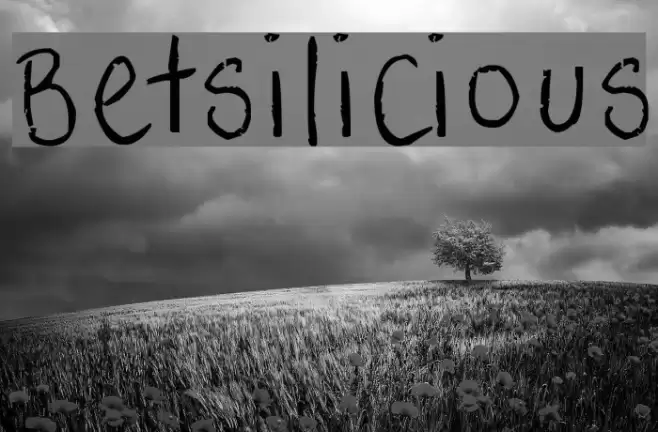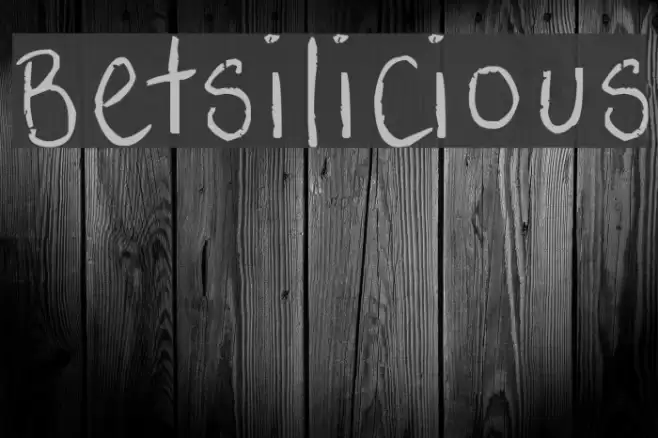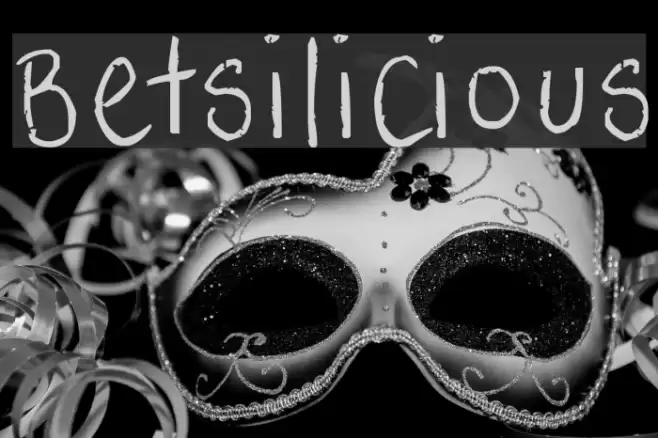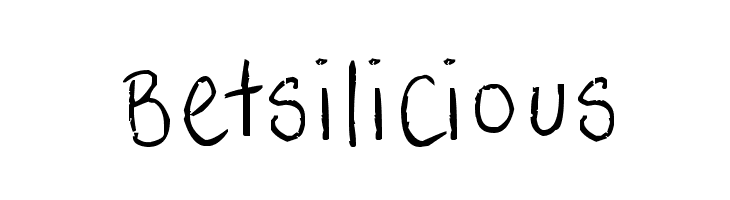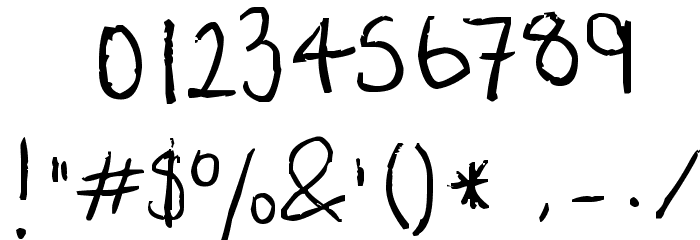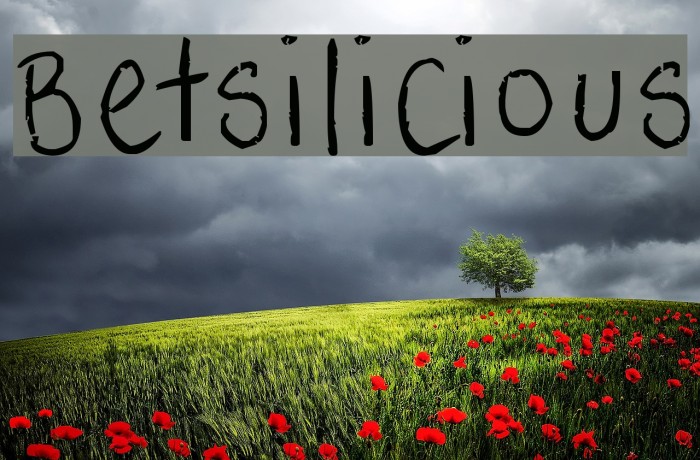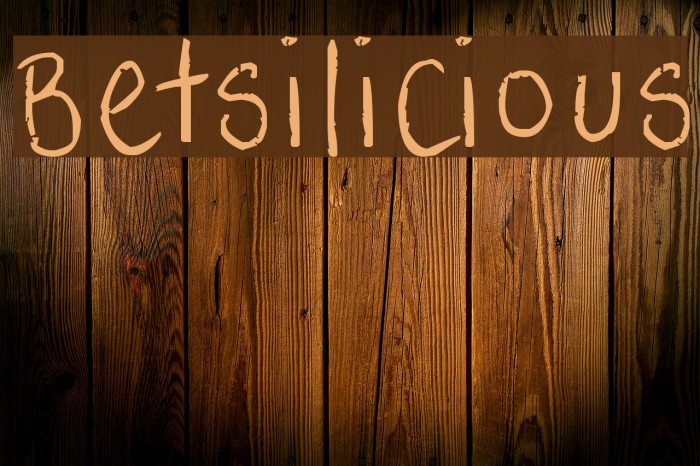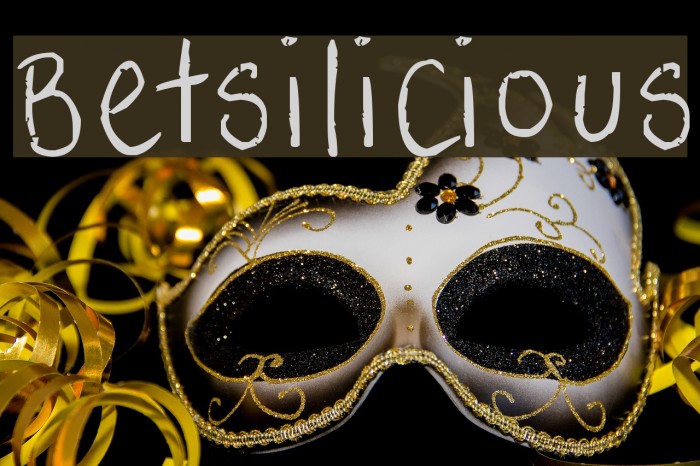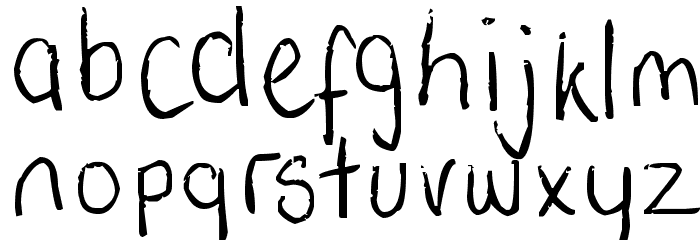
Betsilicious Font
Betsilicious Description
This font features a playful and casual handwritten style, characterized by its irregular and organic strokes. The letters have a slightly uneven baseline, giving it a whimsical and informal appearance. The strokes are moderately thick, with a consistent weight throughout, and the characters are slightly rounded, adding to the approachable feel. The font maintains good legibility despite its informal style, making it suitable for various creative projects. The numerals and special characters are designed to match the playful aesthetic, ensuring a cohesive look across all text elements.
A playful, casual handwritten font with irregular strokes and a whimsical feel from Handwritten fonts.
- Proposed Projects: Ideal for greeting cards, children's books, casual branding, and social media graphics.
- Overall Style: Casual
- Use Case: Headlines, Informal text, Creative projects